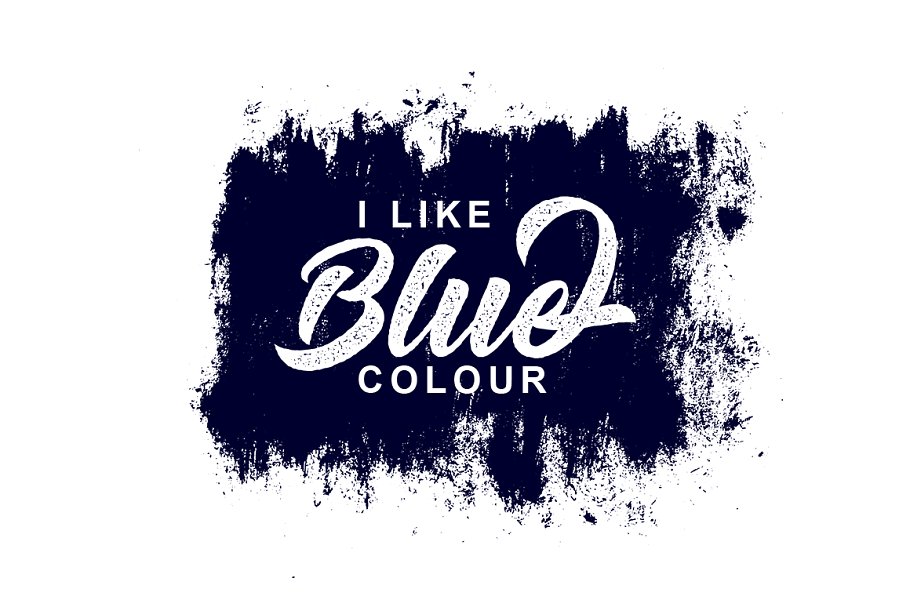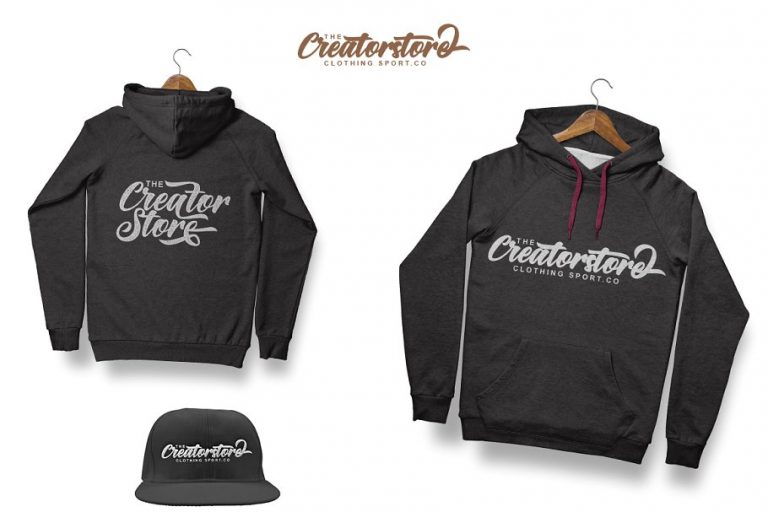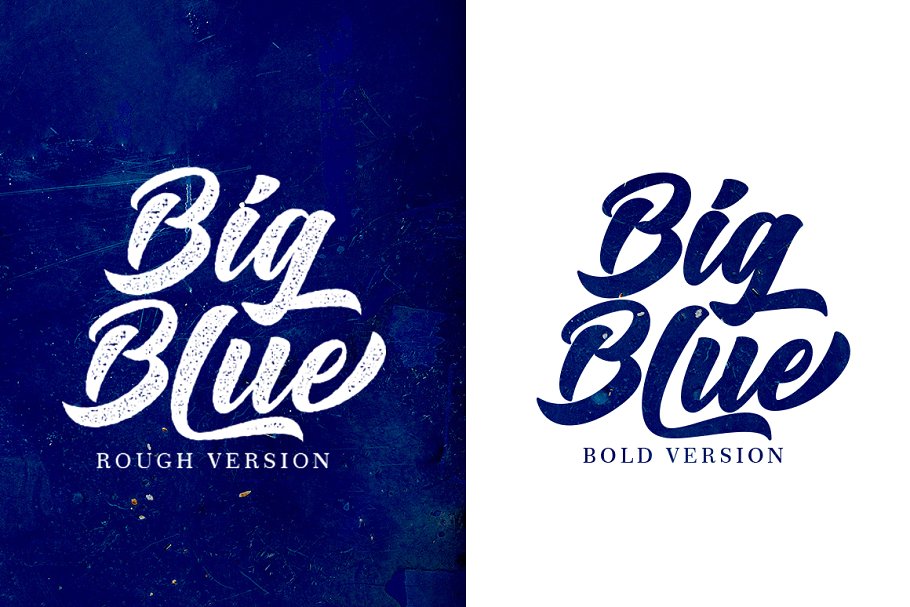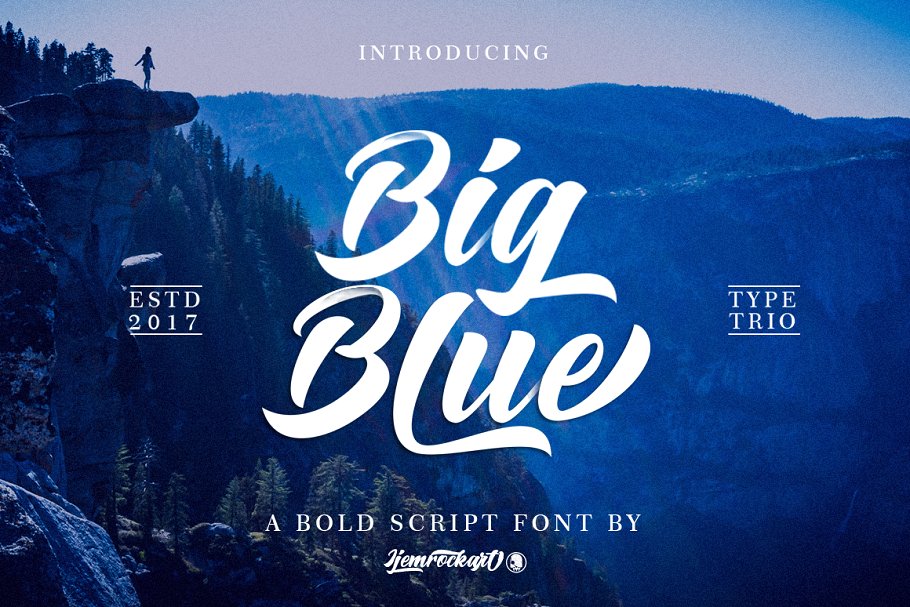
Big Blue Bold Script Font
Big Blue Bold Script Font – Free Demo
This is bold and brush style font. If you are looking for such typeface then it is perfect for your work. Introducing Big Blue Font. Big Blue Bold Script Font is a hand brushed typeface, with authentic Clean and Rough imperfections, and a very bouncy baseline It has a perfectly paired complimentary marker font , and a super handy set of bonus Swash. Ideal for logos, handwritten quotes, product packaging, header, poster, merchandise, social media & greeting cards.